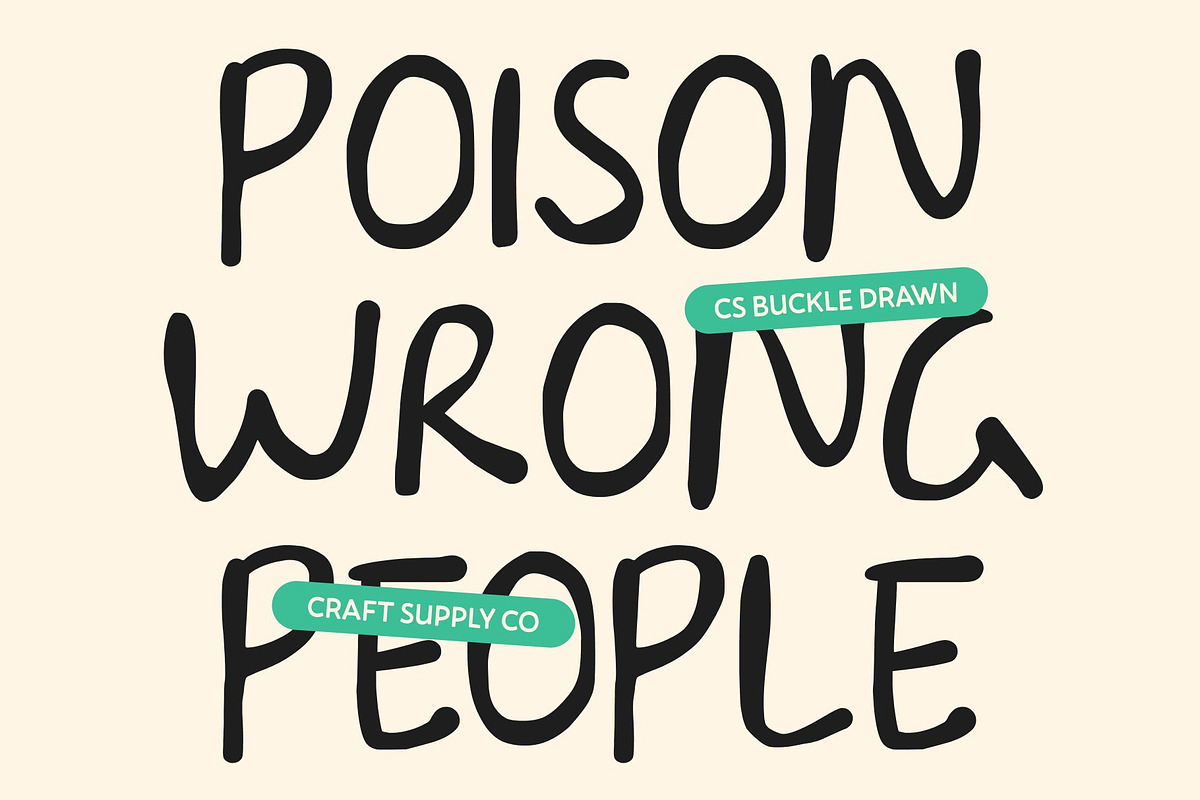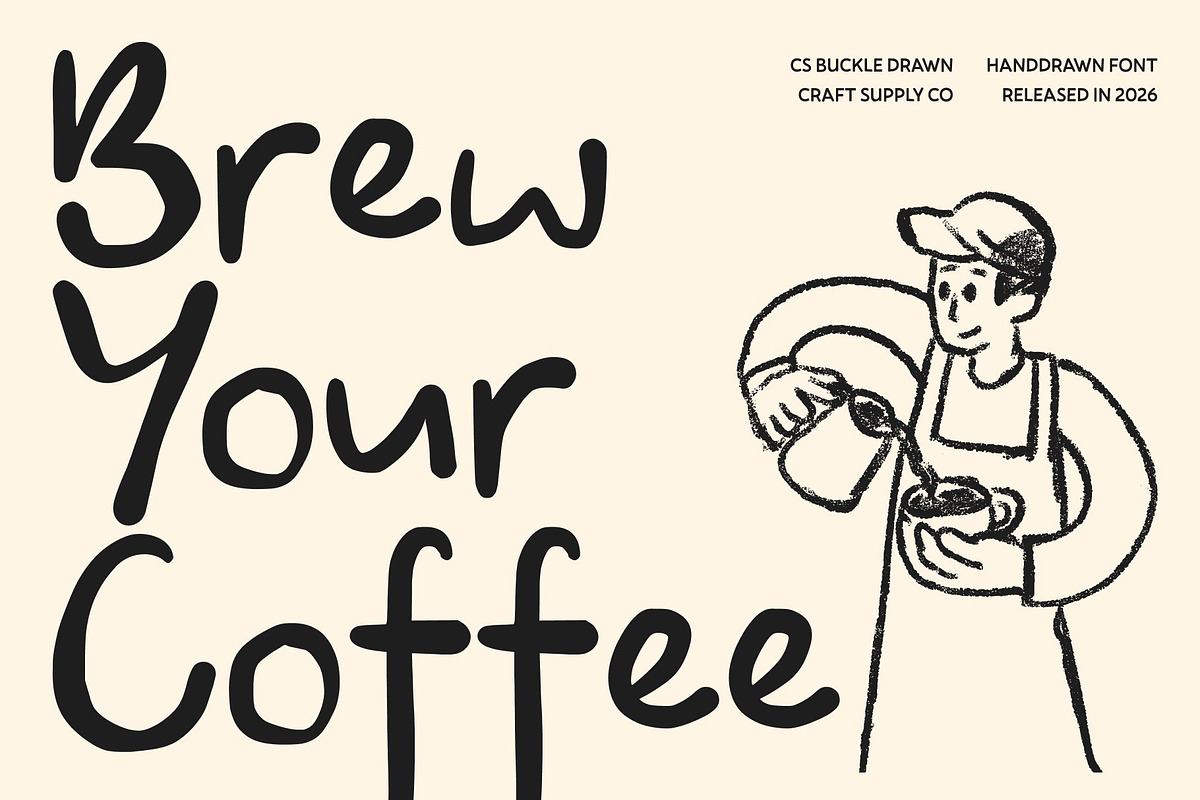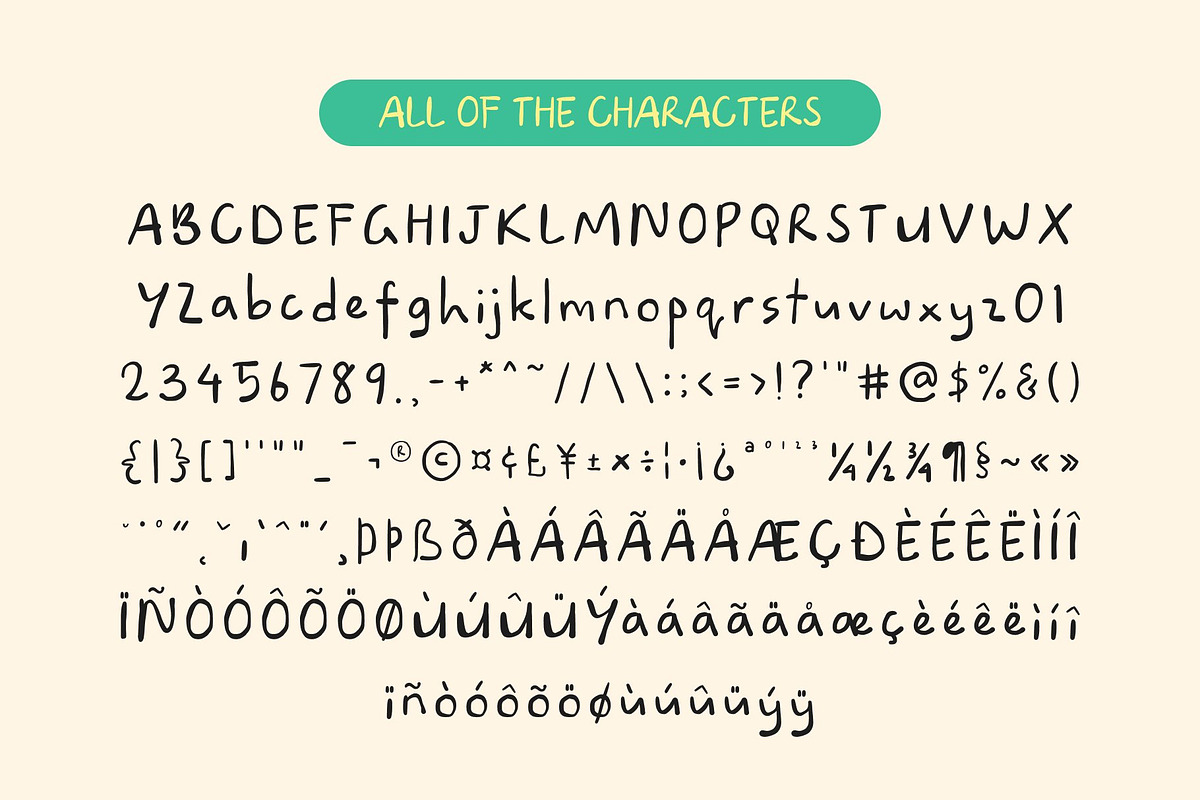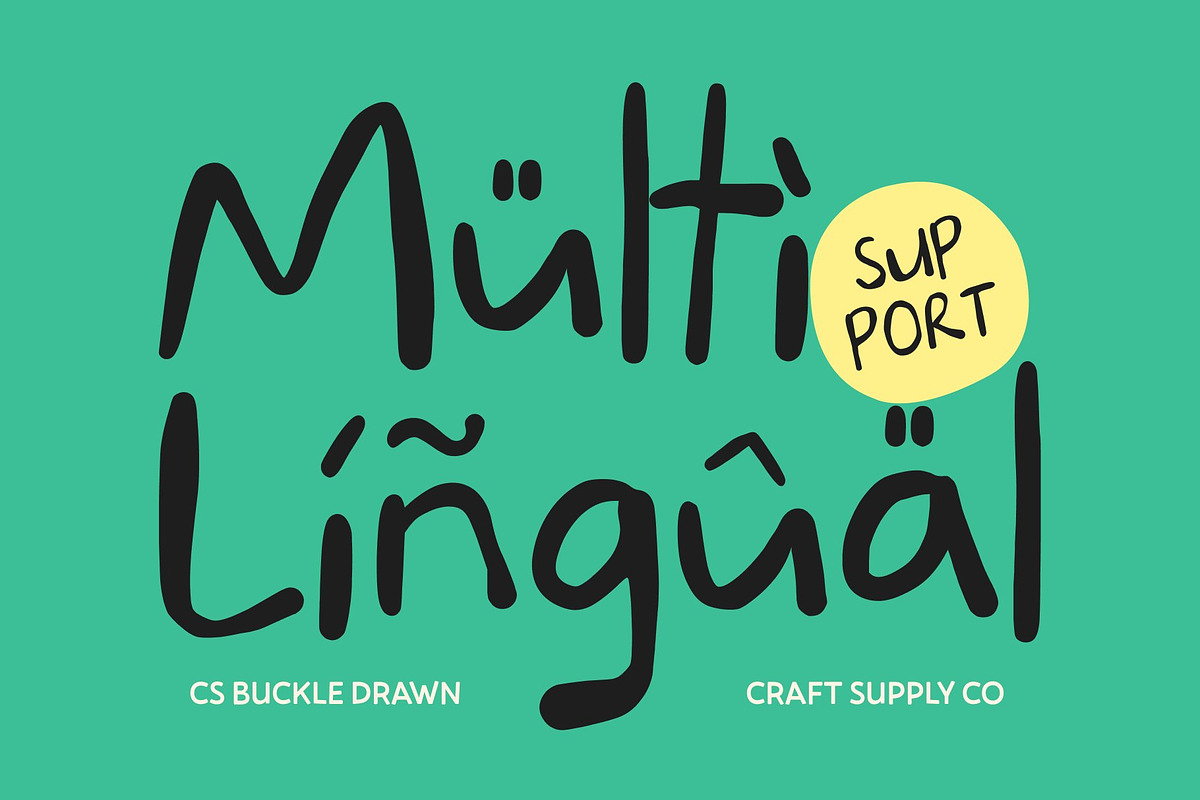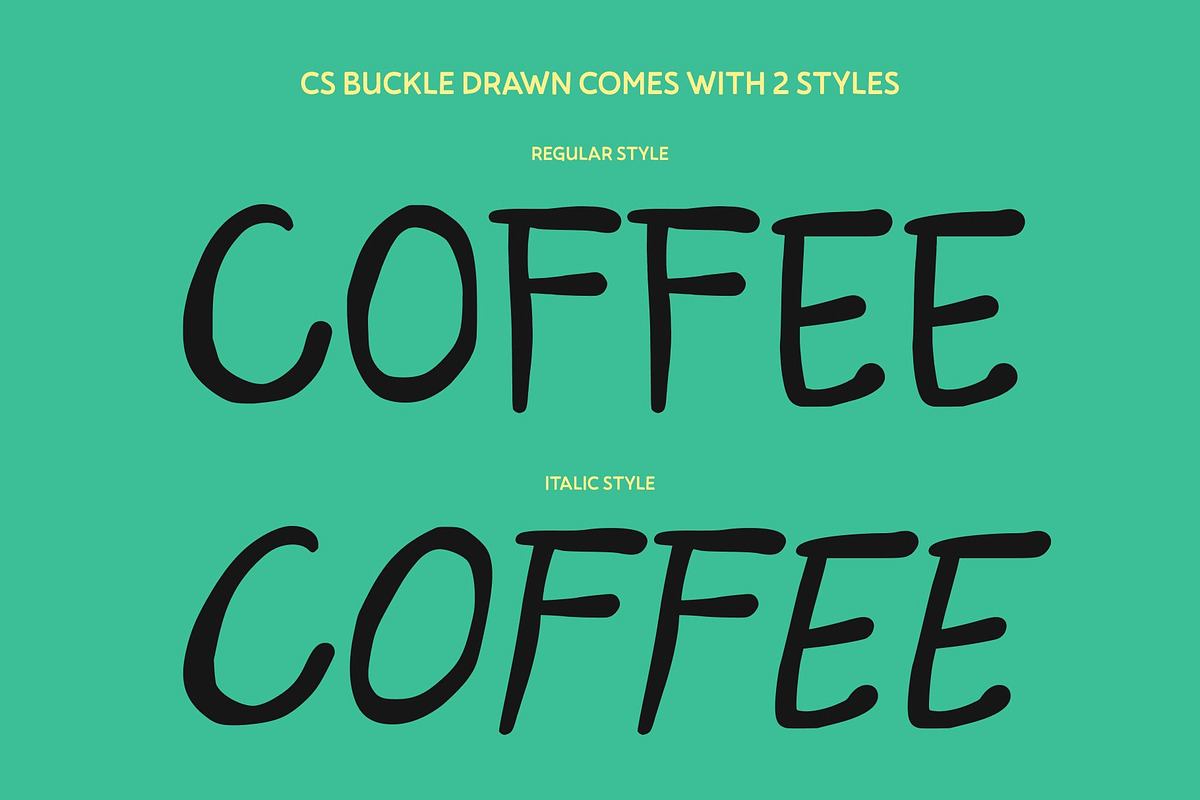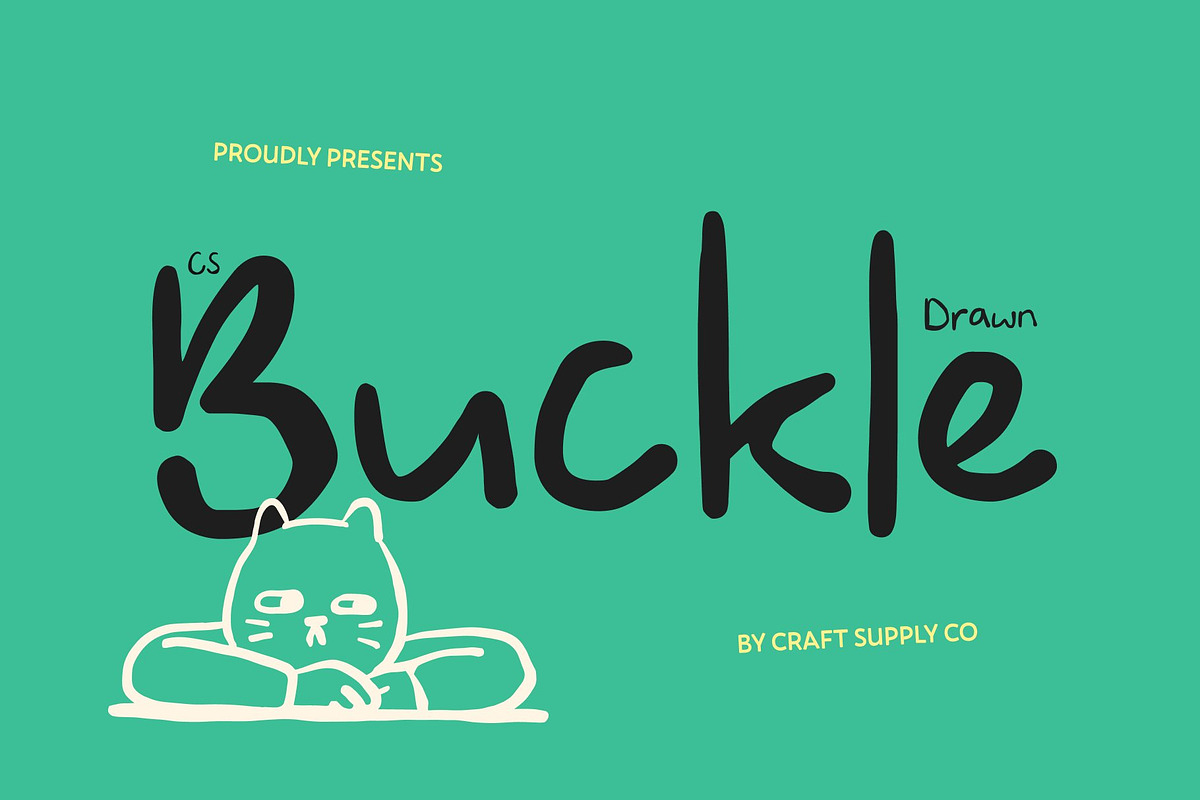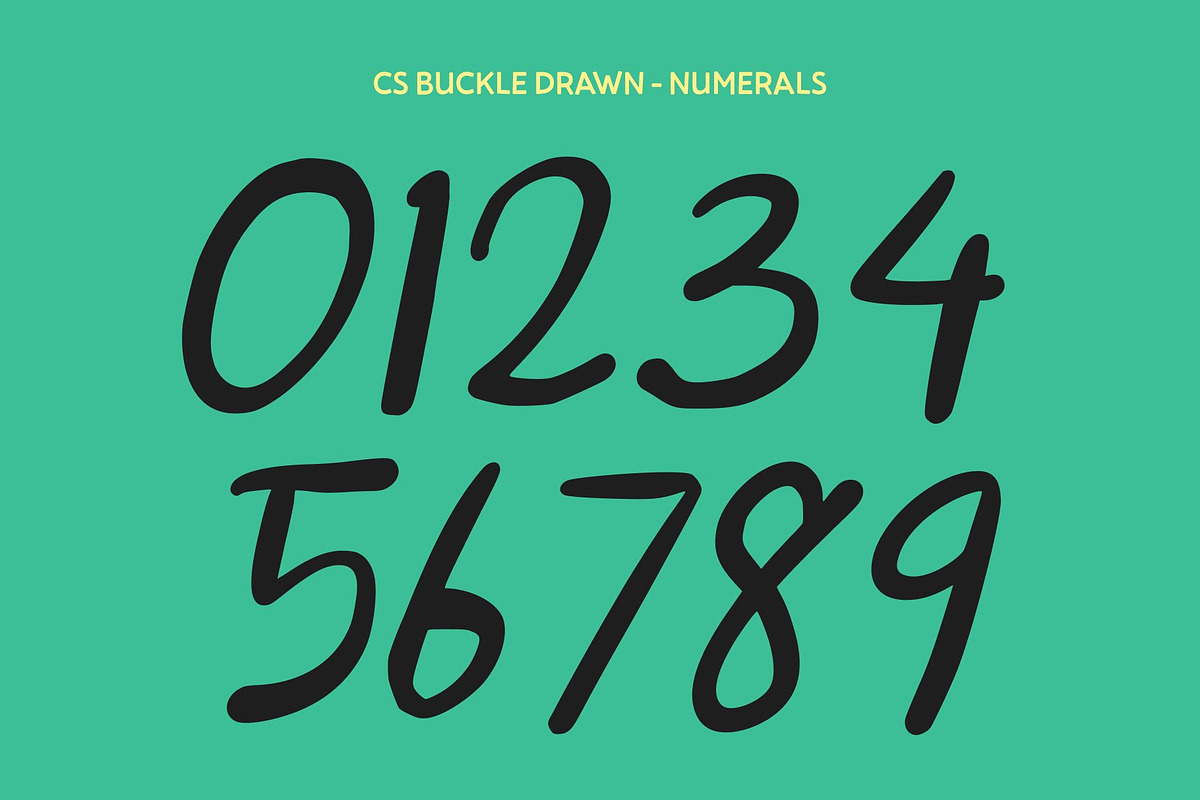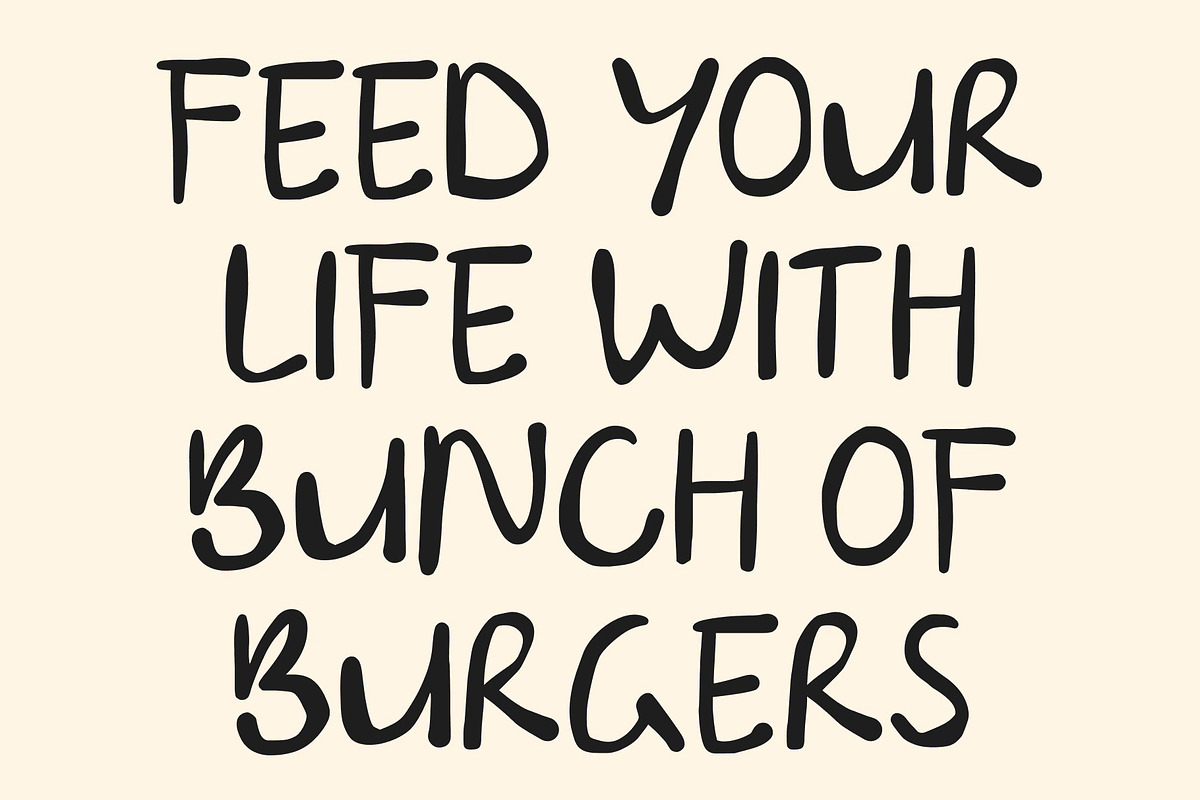
CS Buckle Drawn
CS Buckle Drawn – Imperfectly Bold, Playfully Rebellious
Ugly Font with Irregular Strokes This is a cute yet chaotic ugly font that proudly celebrates imperfection. Built on a sans serif foundation, its irregular strokes and unpolished shapes create a raw, energetic look that breaks away from traditional design rules. Playful and quirky by nature, this font is made for designers who want to stand out and embrace creativity without limits.
Irregular Forms for Authentic Expression Every letter carries an unpredictable charm through uneven lines, unconventional proportions, and spontaneous forms. The hand-drawn texture enhances its imperfect character, giving the font an honest, human-made feel. This authenticity makes this font ideal for projects that value originality and expressive freedom over polished perfection.
Playful Energy for Bold Visuals This font thrives on spontaneity and movement. Its rough edges and lively rhythm inject youthful energy into any layout, making designs feel dynamic and fearless. Perfect for youth branding, experimental posters, or expressive typography, it delivers a rebellious yet approachable personality that instantly captures attention.
Perfect for Creative and Anti-Mainstream Designs From art projects and underground zines to daring visual campaigns, this font challenges the ordinary and celebrates the unexpected. Its “ugly but confident” style turns imperfection into a statement, making every composition feel raw, playful, and authentic. With this font, your designs don’t just speak they shout with creativity and rebellious charm.
- CS Buckle Drawn Regular
- CS Buckle Drawn Italic